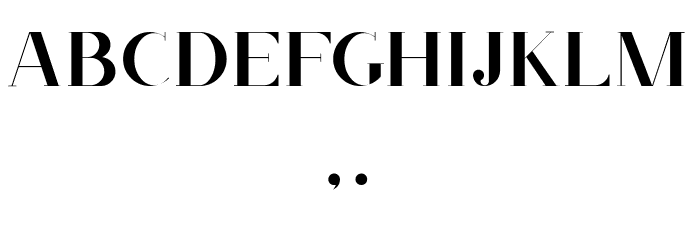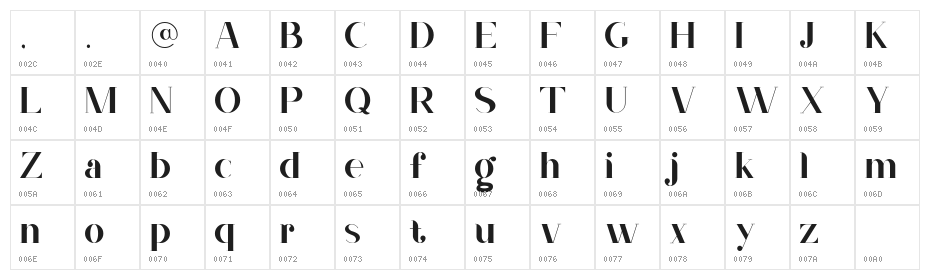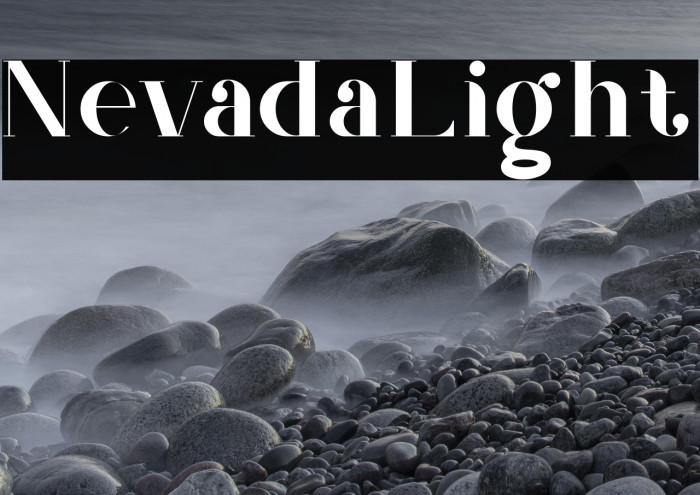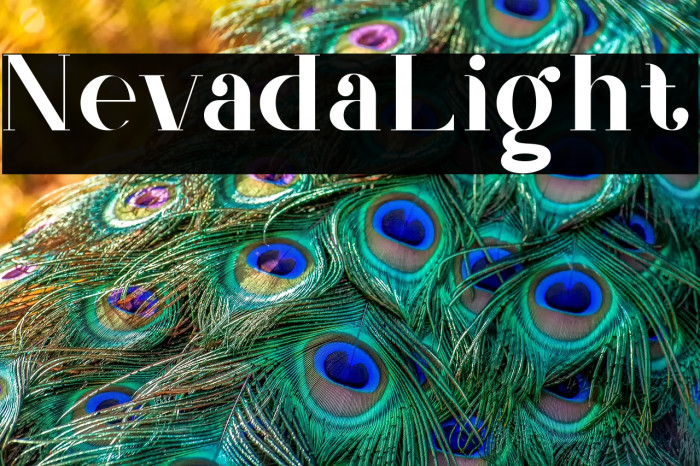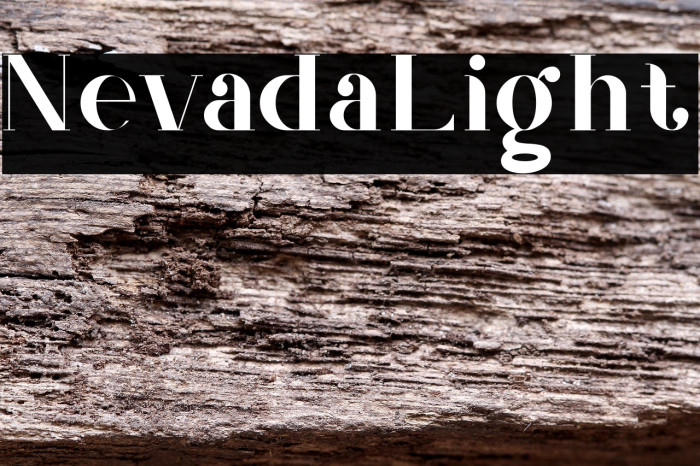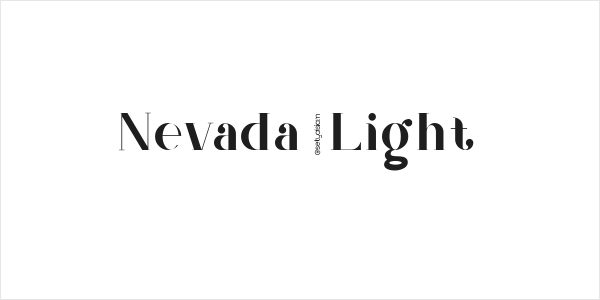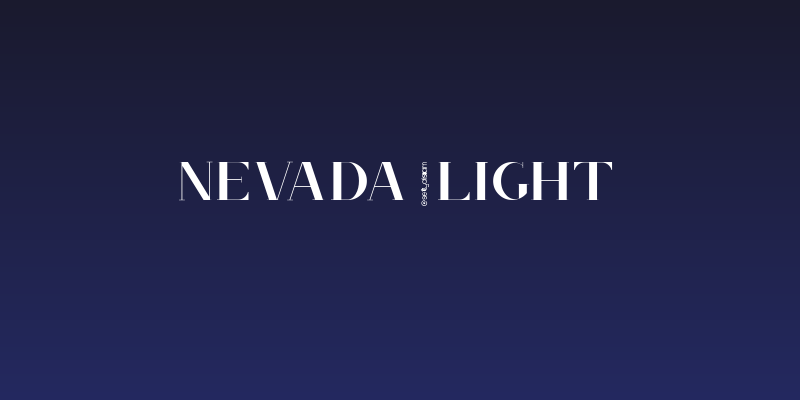
Nevada_Light Font
Nevada_Light Description
This font features a striking blend of modern elegance and classic sophistication. The uppercase letters exhibit a bold and confident presence with high contrast between thick and thin strokes, creating a dramatic visual impact. The lowercase letters maintain a harmonious balance, with smooth curves and a refined structure. The overall design is sleek and stylish, making it suitable for a variety of applications. The font's unique character is further enhanced by its distinctive serifs, which add a touch of flair and personality. The spacing between characters is carefully considered, providing a clean and organized appearance. This font is versatile and can be used effectively in both digital and print media.